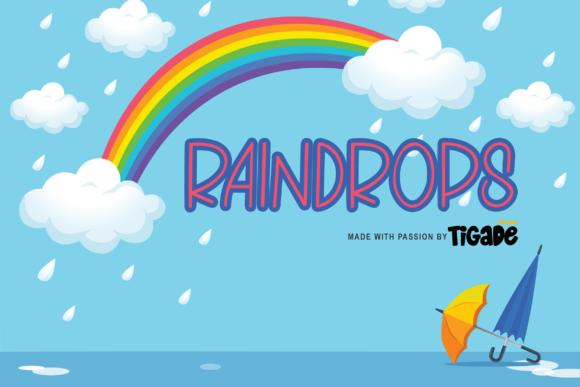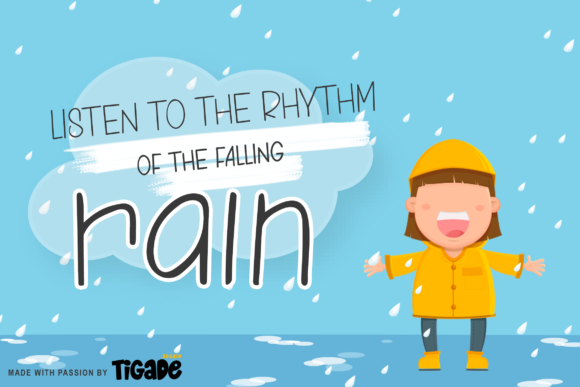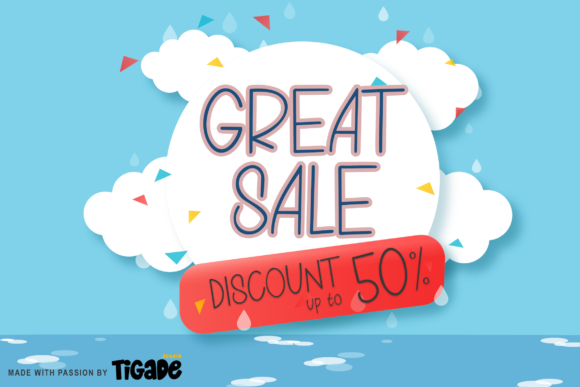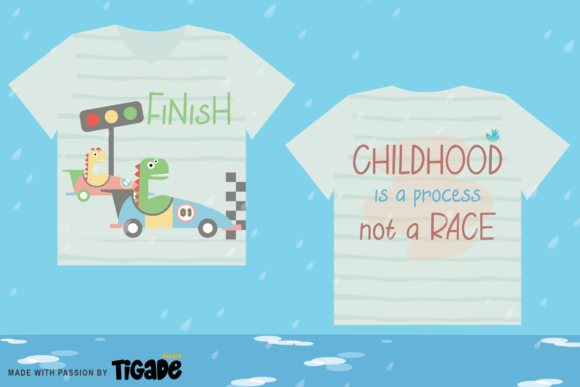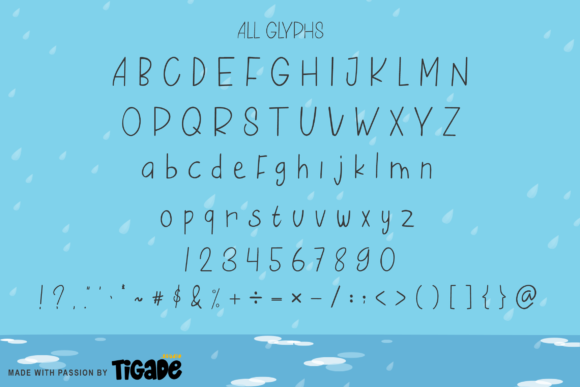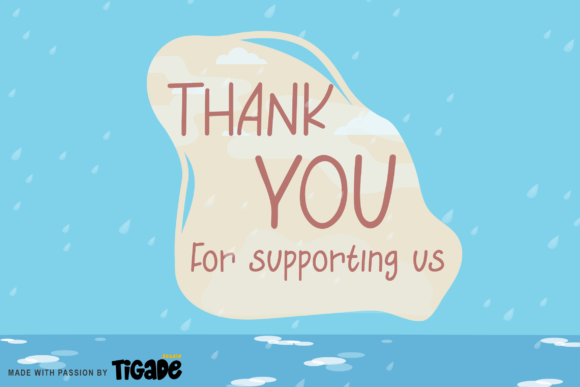
Raindrops Font
About Raindrops Font
Raindrops is a thin and cute handwritten font. It will add an incredibly joyful touch to your designs. Add this beautiful font to each of your creative ideas and notice how it makes them stand out!